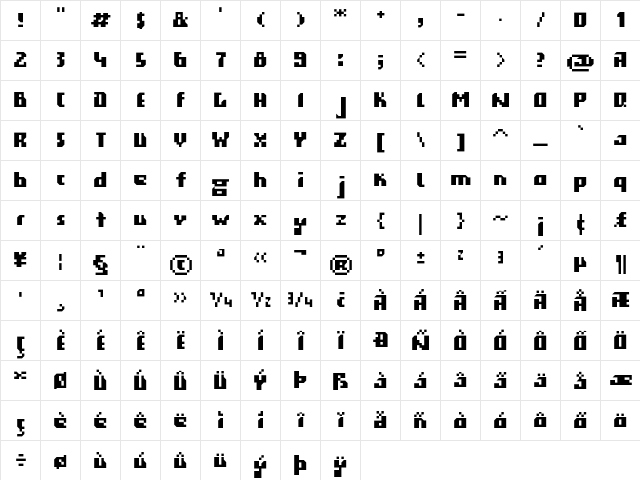
gigabyte Regular
| Foundry | Wilfried Ignalka |
| Designer | Wilfried Ignalka |
Design Context for gigabyte Typeface
gigabyte offers clean, dependable letterforms without strong stylistic allegiance, making it a practical choice for designers who need flexibility.